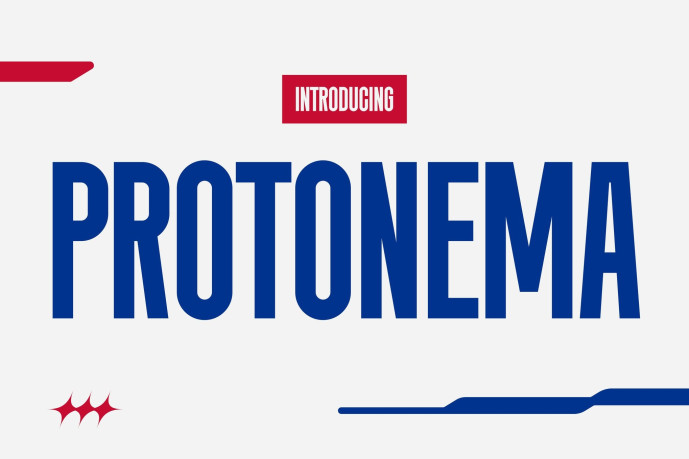
Protonema Font
Designer: aivosdreams
Protonema Font is a bold condensed display typeface designed for sports branding, fitness campaigns, and modern product packaging. Featuring tall geometric proportions, clean vertical construction, sharp terminals, and tight spacing, it delivers maximum visual impact while maintaining excellent readability.
Inspired by athletic culture, performance products, and contemporary advertising, Protonema communicates confidence, speed, and strength. Its condensed structure allows designers to fit powerful headlines into limited spaces without sacrificing presence, making it ideal for branding systems that demand attention. Whether used for sports labels, energy drink packaging, promotional graphics, social media content, or event branding, Protonema creates a commanding visual identity with a modern competitive edge.
Protonema helps designers create visuals that feel energetic, focused, and professional. The condensed architecture naturally amplifies headline impact, making every word appear stronger and more purposeful. Perfect for sports branding, fitness products, men’s grooming packaging, esports graphics, posters, advertising campaigns, social media promotions, and editorial headlines, Protonema transforms ordinary typography into a powerful communication tool. It is designed for projects where visibility, confidence, and clarity matter most.